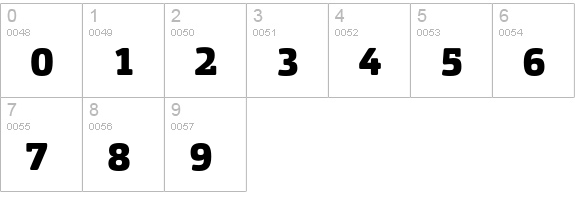
Orgon Slab Black is a maximum-weight, dramatic variant in the Orgon typeface family \xE2\x80\x94 well suited to maximum-impact headlines, posters, and packaging.
Orgon Slab Black font is a versatile and modern typeface that exudes sophistication and strength. Its bold and sturdy design makes it perfect for headlines, posters, and branding projects that require a strong visual impact. The sharp serifs and clean lines of Orgon Slab Black give it a timeless appeal that is both classic and contemporary. This sleek and professional font is ideal for creating a bold statement in any design project. Whether used for advertising, packaging, or editorial purposes, Orgon Slab Black delivers a sense of authority and confidence. Its high contrast and distinctive letterforms make it stand out from the crowd and command attention. Best of all, Orgon Slab Black font is available for free download at FontsMarket.com. This means that you can easily access this premium typeface without any cost, making it a valuable addition to your font collection. Don't miss out on the opportunity to elevate your designs with the striking and impactful Orgon Slab Black font.